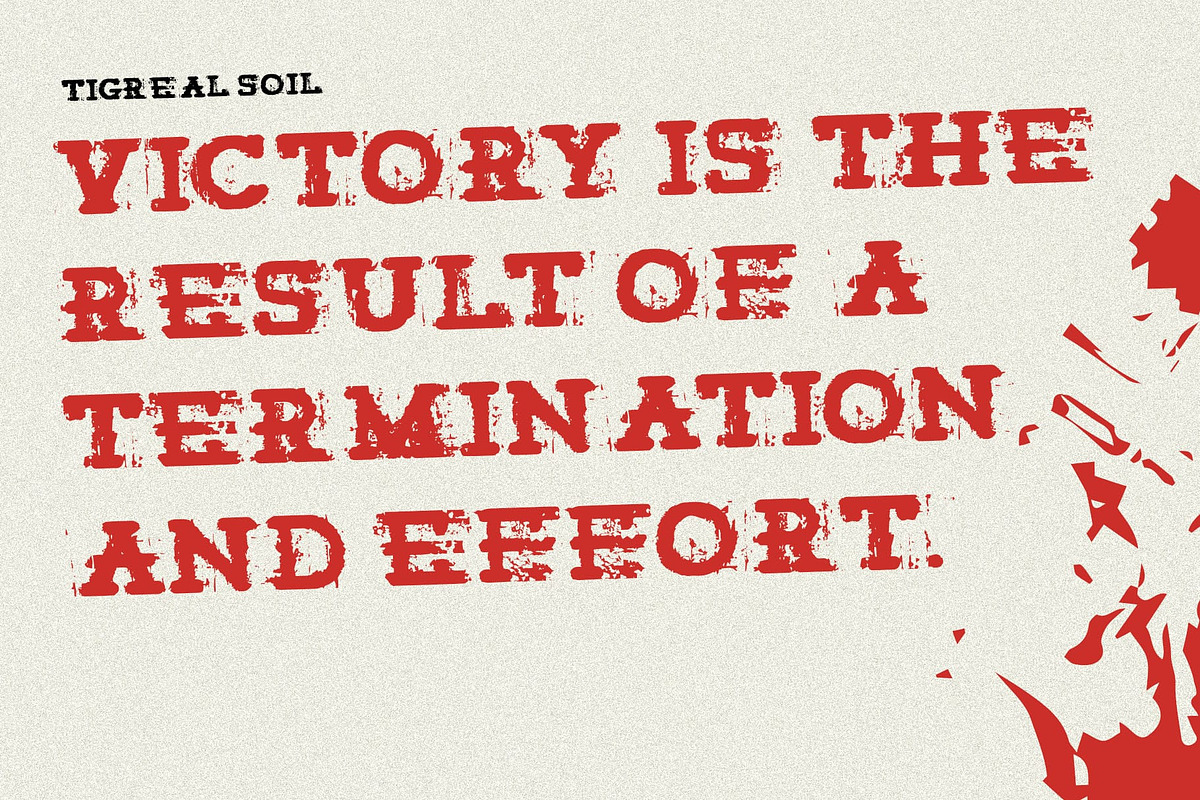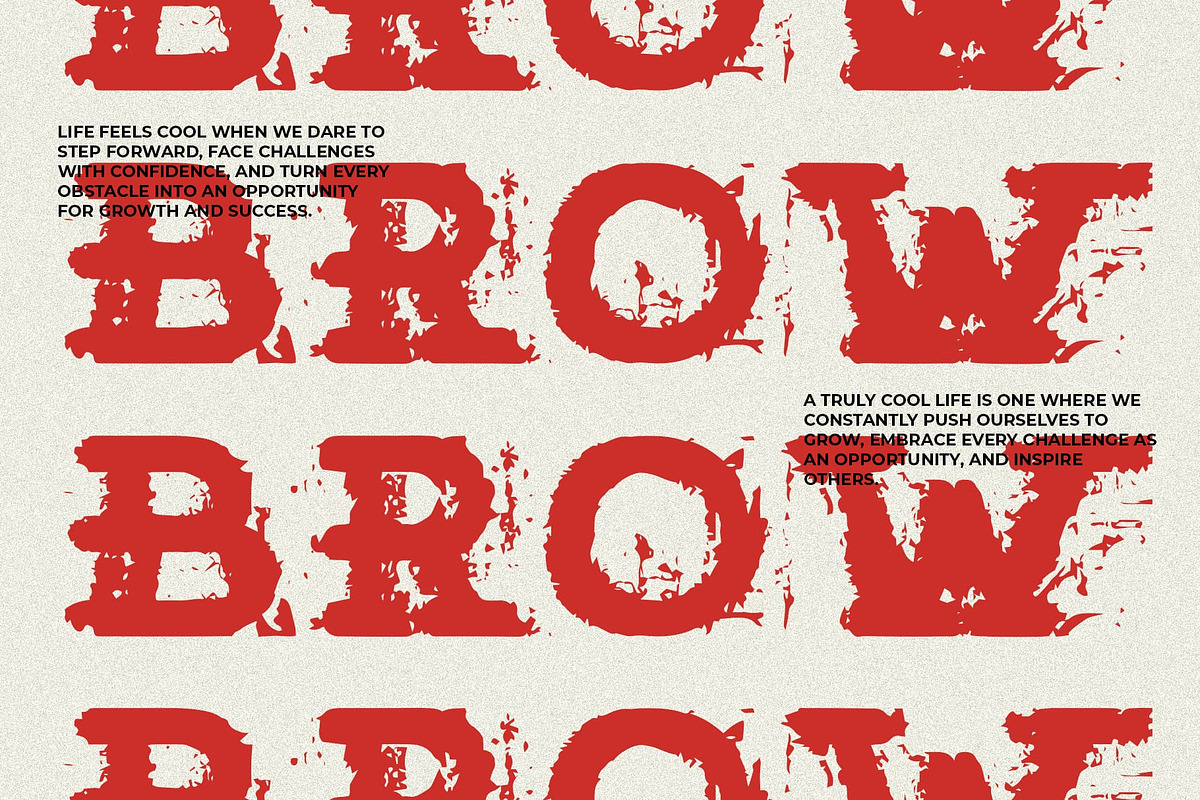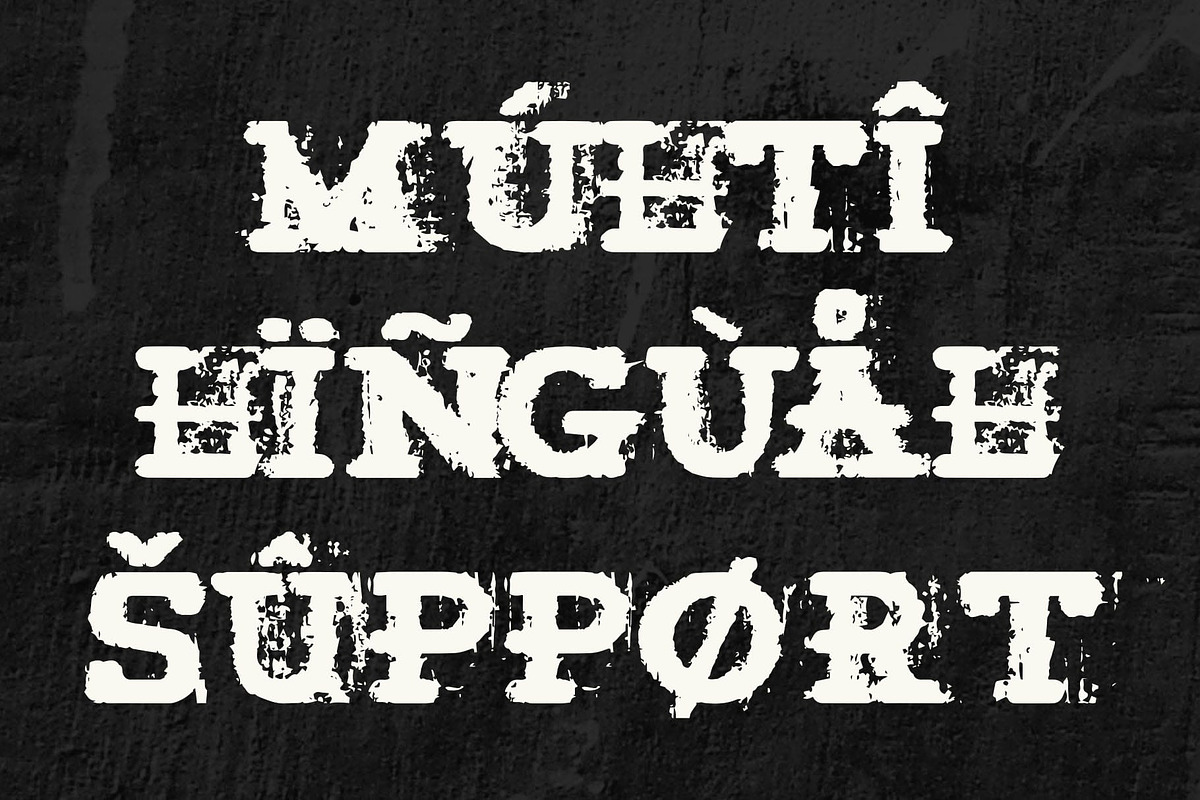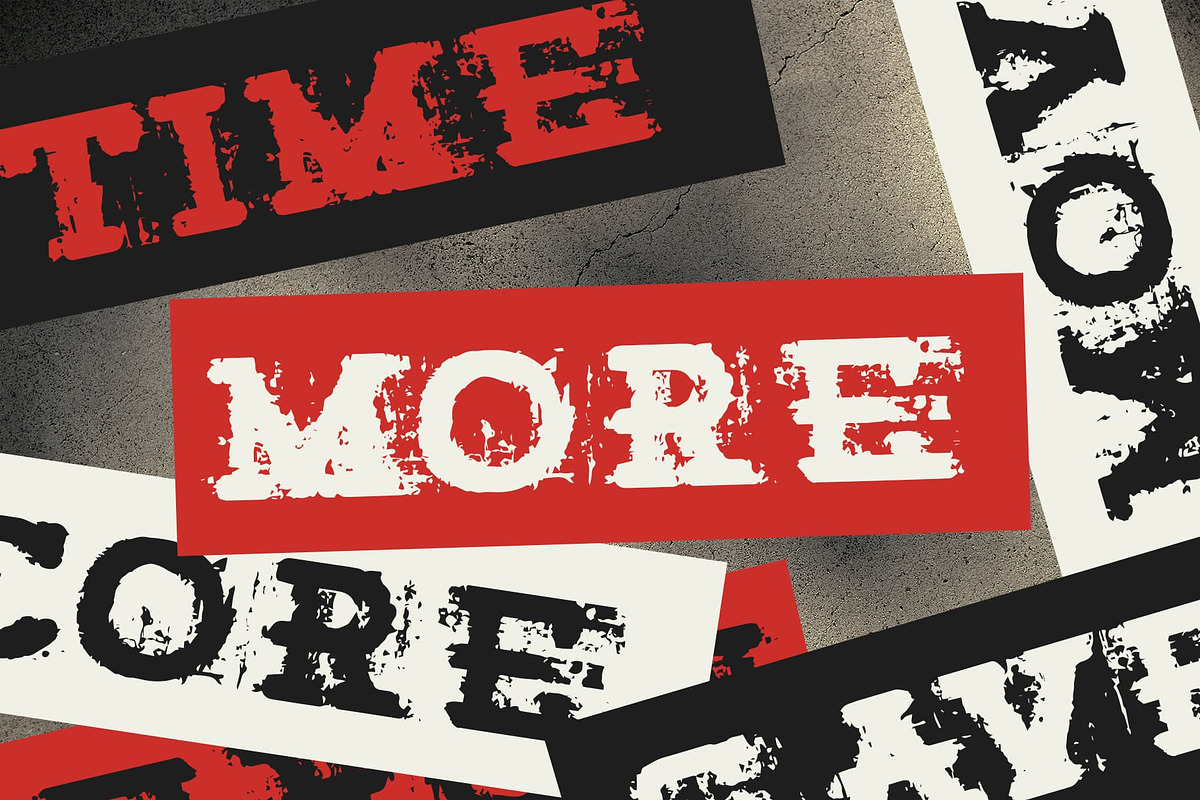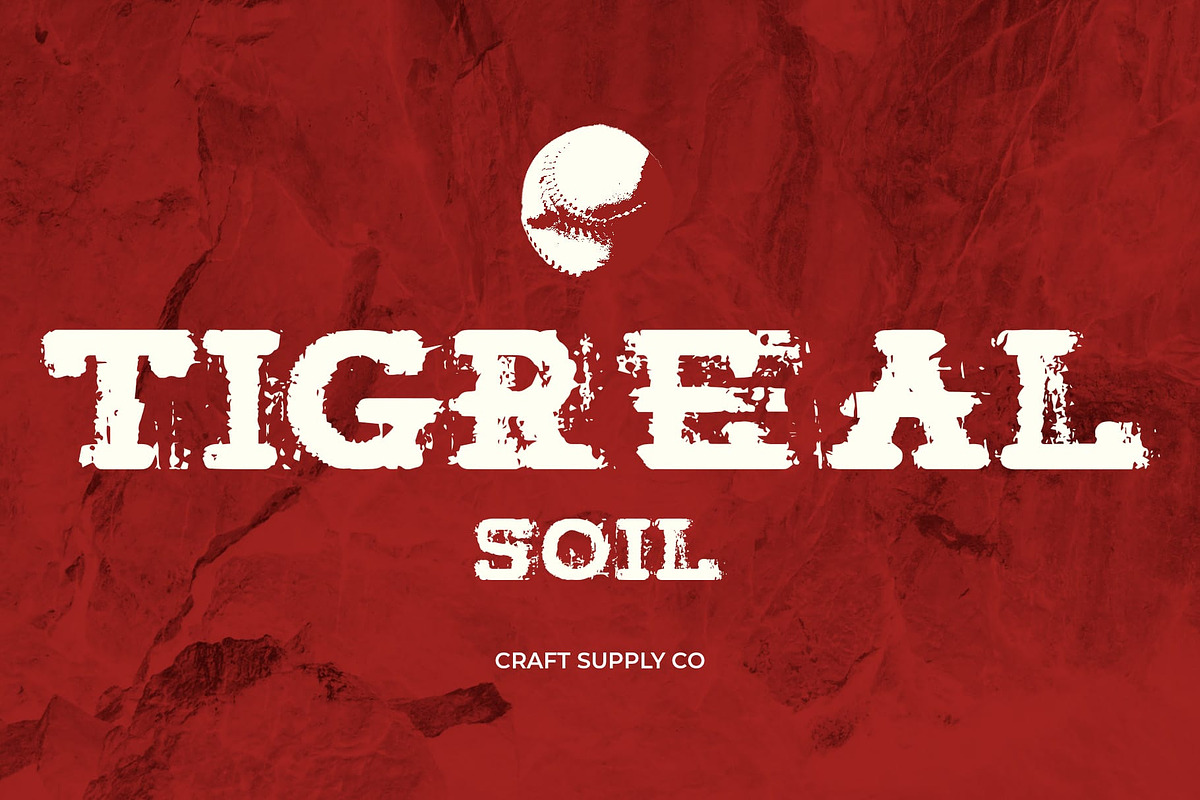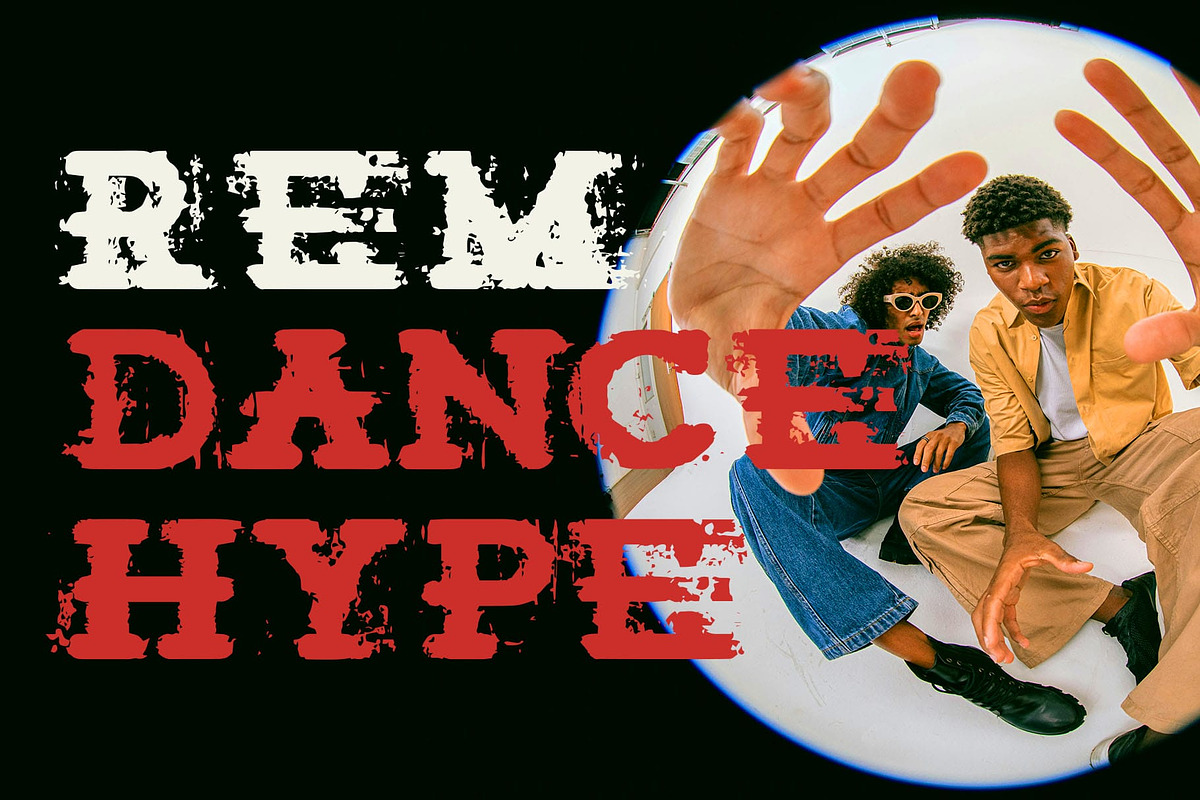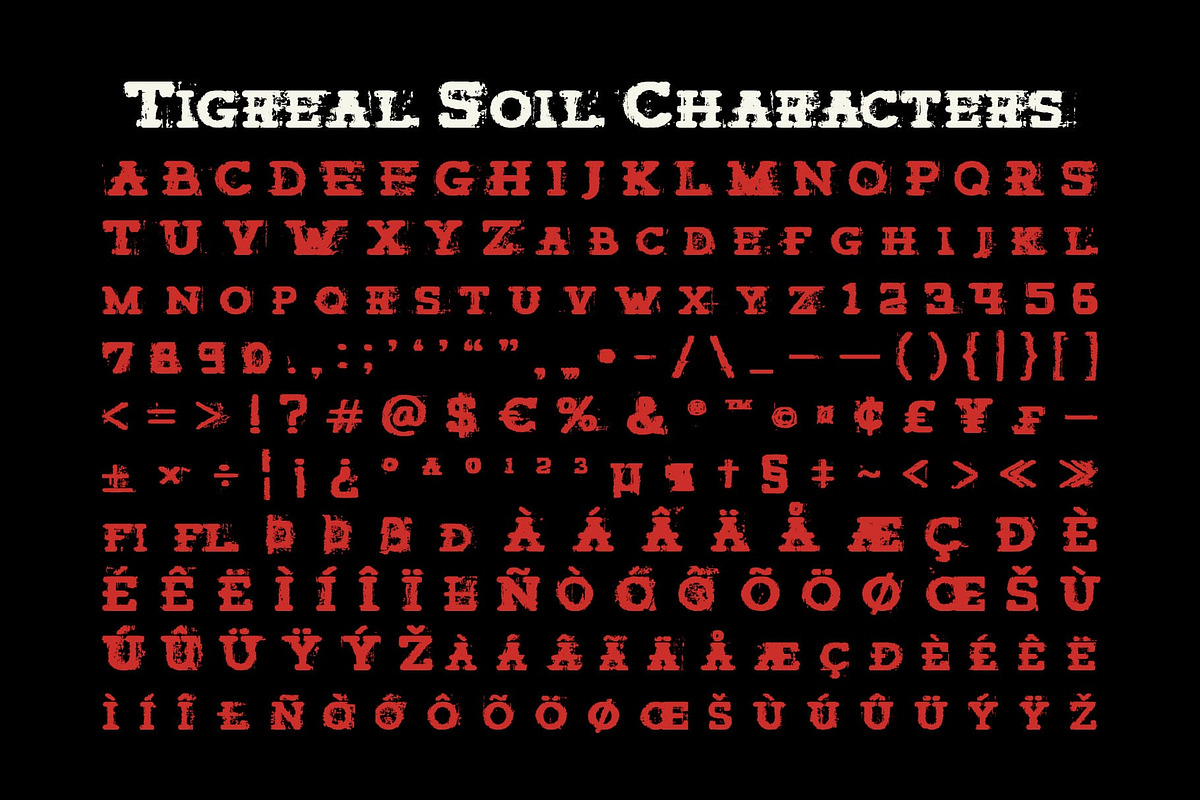
Tigreal Soil
Tigreal Soil Font – A Bold Slab Serif with a Weathered Charm
Classic Slab Serif with a Vintage Retro Feel Tigreal Soil is a sturdy slab serif font that embodies the essence of vintage typography with a distinctive, aged look. Its thick, blocky letterforms exude strength and confidence, making it a perfect choice for bold, eye-catching designs. The classic slab serif structure enhances its timeless appeal, giving it a rustic yet refined presence.
Soil Effect for a Rugged and Textured Look What sets Tigreal Soil apart is its rough, dust-like texture, which gives it an authentic weathered and distressed appearance. This organic texture mimics the look of aged print materials, eroded signage, or natural wear and tear, adding depth and character to every letter. This effect enhances its raw, earthy charm, making it feel naturally bold and authoritative.
Perfect for Retro and Rustic-Themed Designs Tigreal Soil is an excellent choice for posters, retro packaging, branding, and editorial designs that aim to capture a historical, classic, or nostalgic aesthetic. Whether you’re creating whiskey labels, outdoor gear branding, vintage-inspired apparel, or artisanal packaging, this font brings a sense of heritage, craftsmanship, and authenticity. With its strong structure, textured finish, and vintage character, Tigreal Soil stands out as a powerful typographic choice for designers looking to create a bold yet rustic identity.